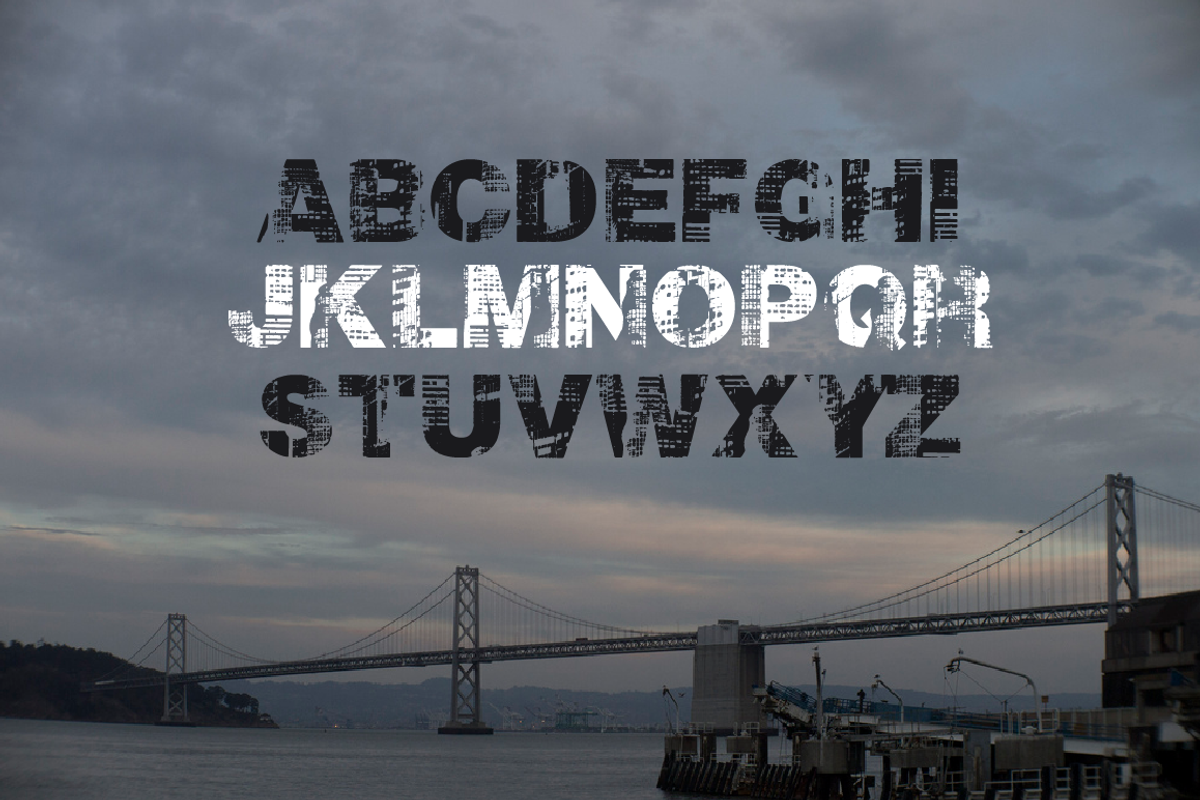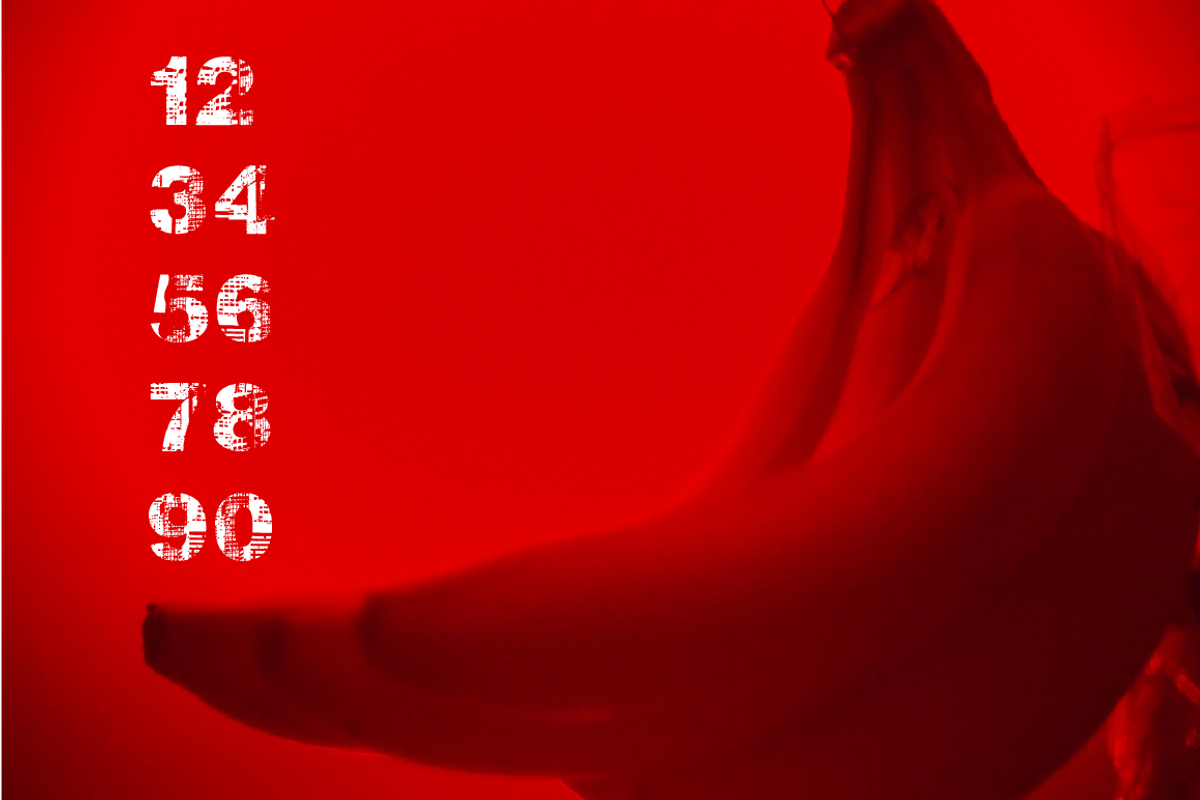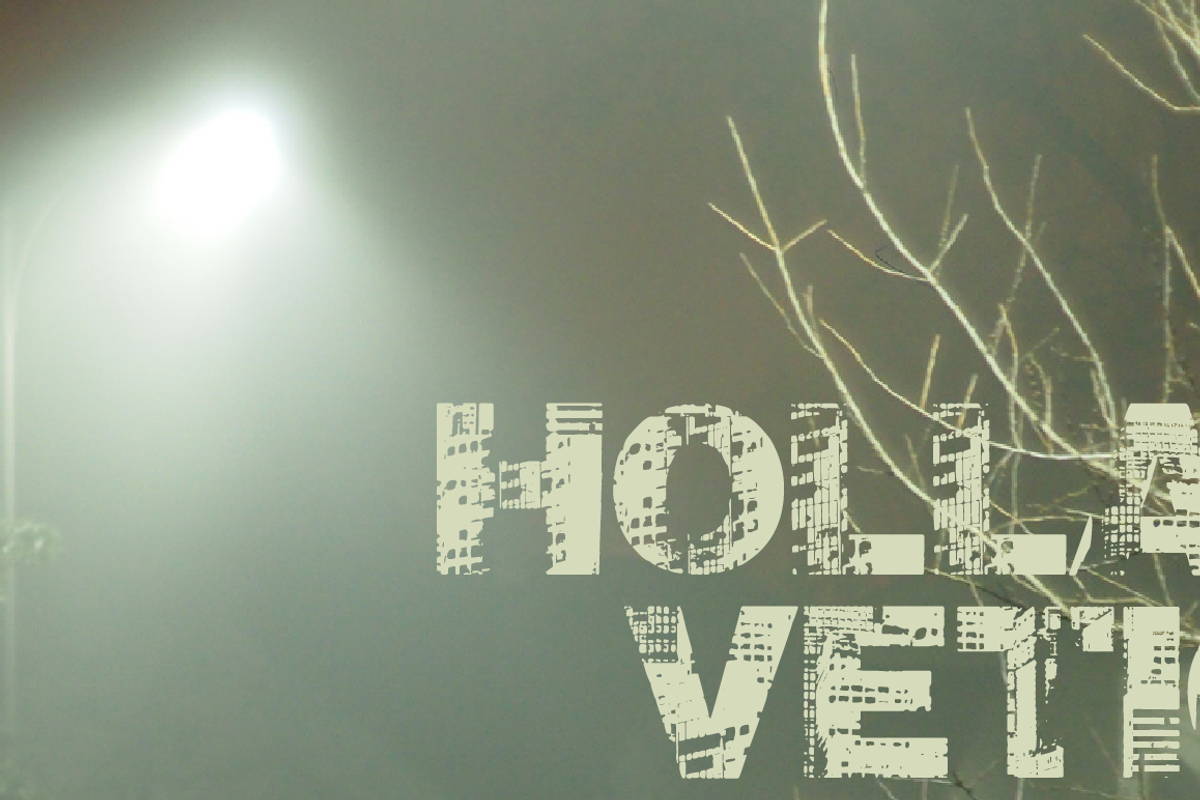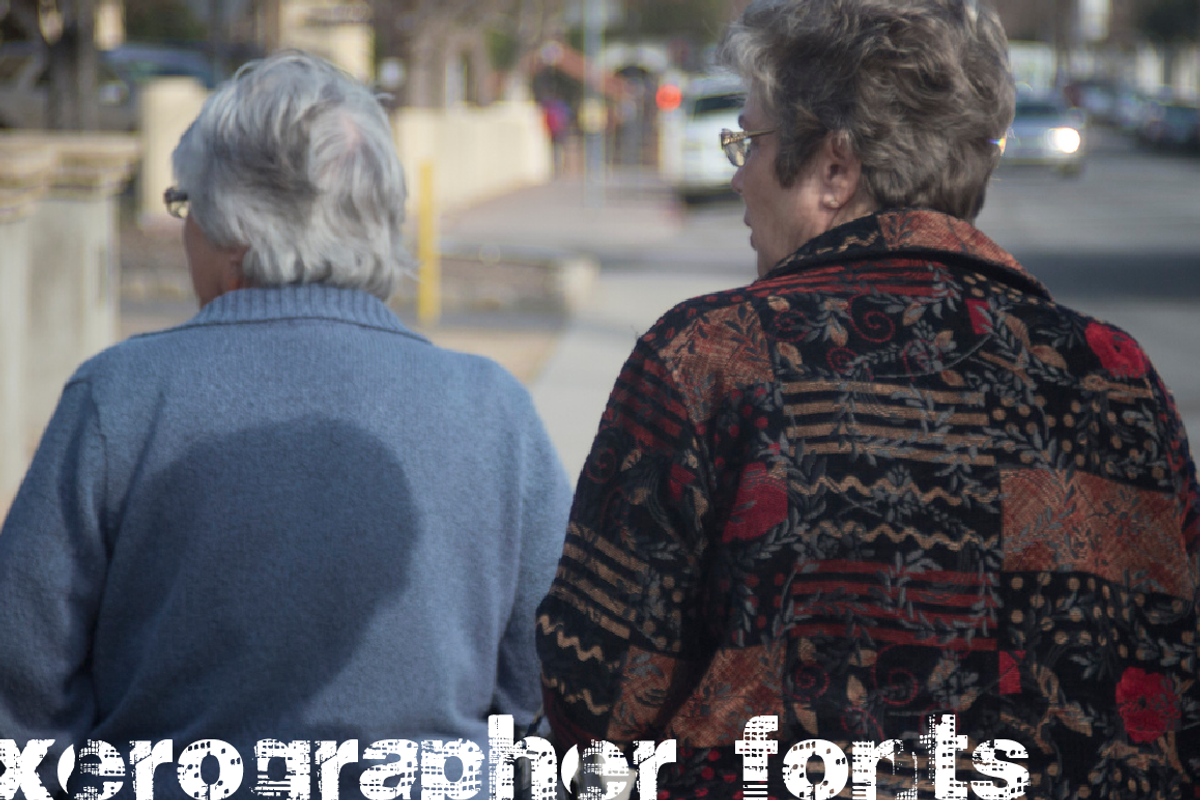
Hollavetica
Hollavetica by xero fonts is a font selected for branding, posters, packaging, typography.
Why Hollavetica is worth a look
Hollavetica by xero fonts fits naturally into Branding, posters, packaging, typography.